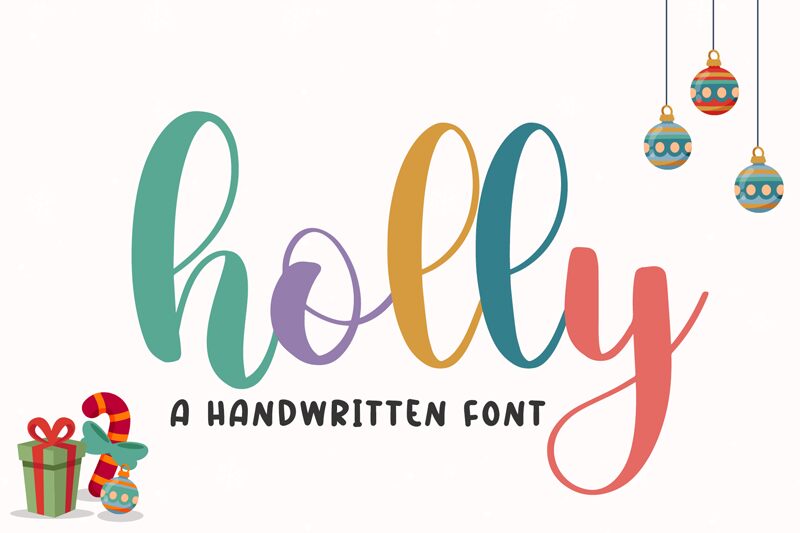
Holly, a captivating calligraphy font designed by Bearytype, effortlessly blends elegance and modernity in its exquisite letterforms. With its graceful strokes and flowing curves, this font adds a touch of sophistication to any project. Perfect for wedding invitations, greeting cards, and feminine branding materials, Holly exudes romance and charm. Its versatile semi-bold weight lends itself well to logo designs, blog headers, and social media graphics. Whether you're designing for fashion or beauty industries or aiming to create a luxurious atmosphere in your artwork, Holly is the ideal choice to elevate your designs with its timeless appeal.